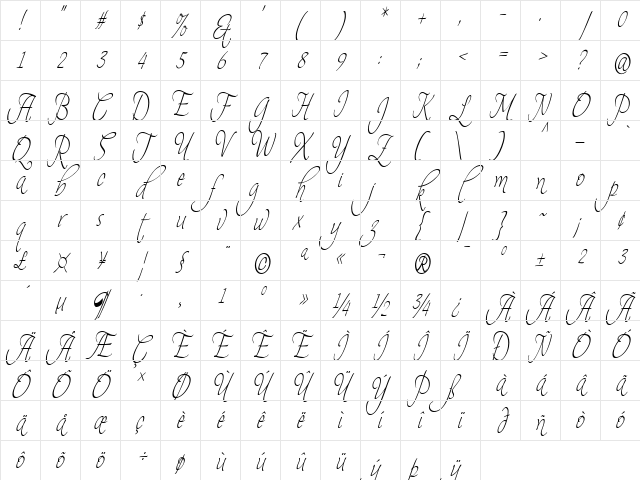
Theage Regular
Foundry: iTypeface
Designer: iTypeface
Design Context for Theage
Theage is a composed and adaptable typeface that performs quietly and consistently across a wide range of design contexts.